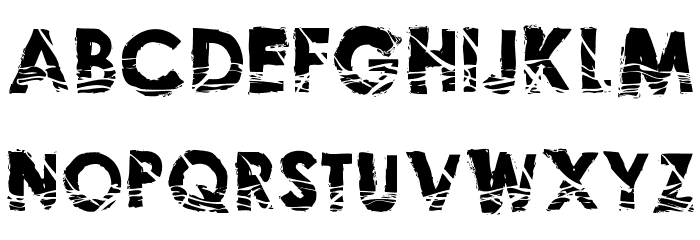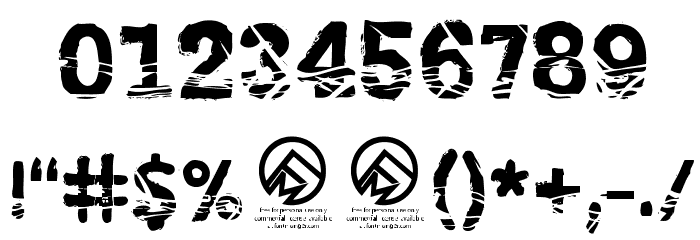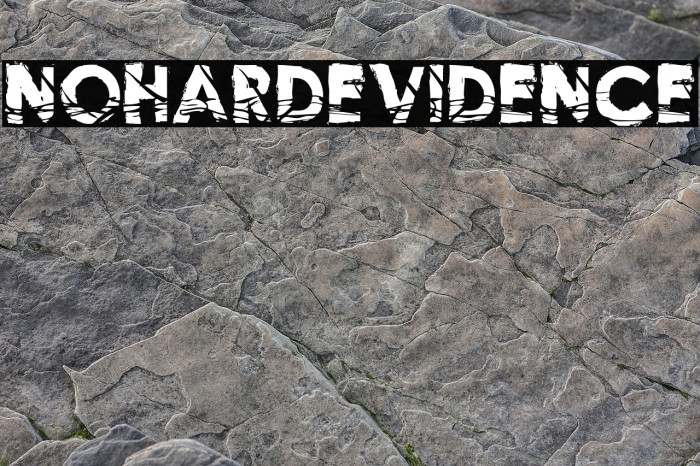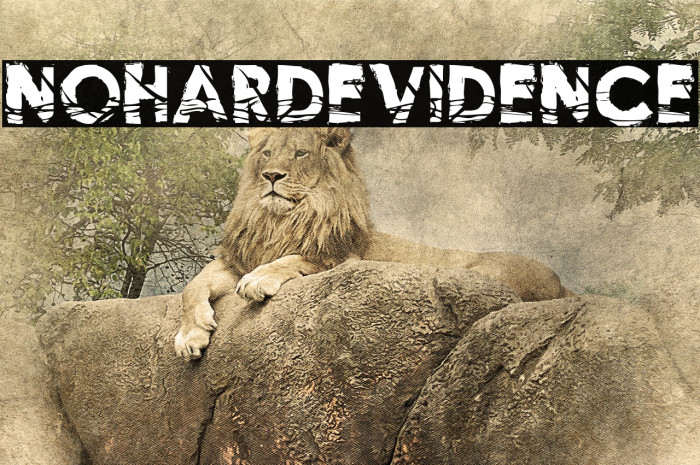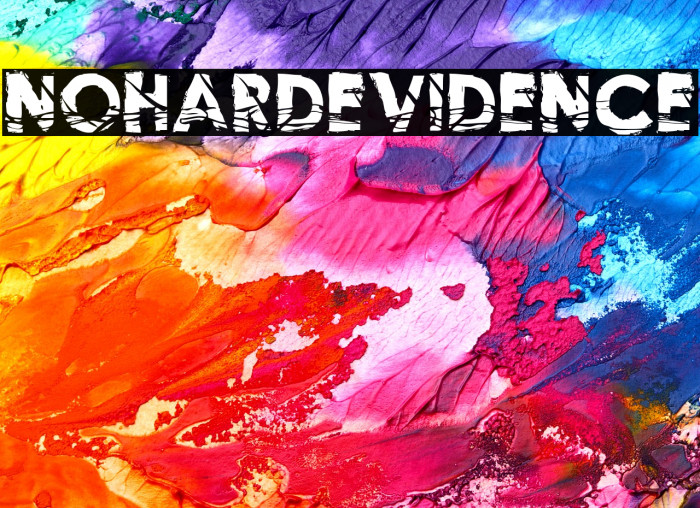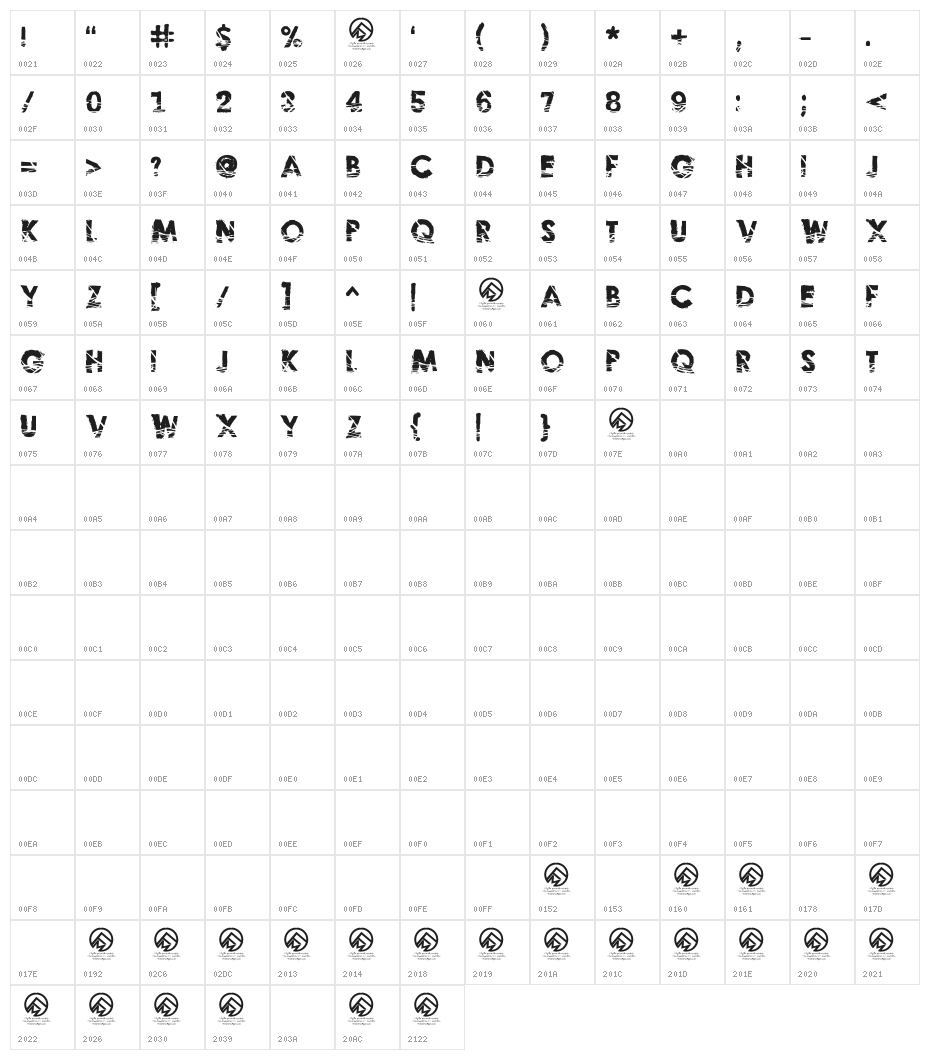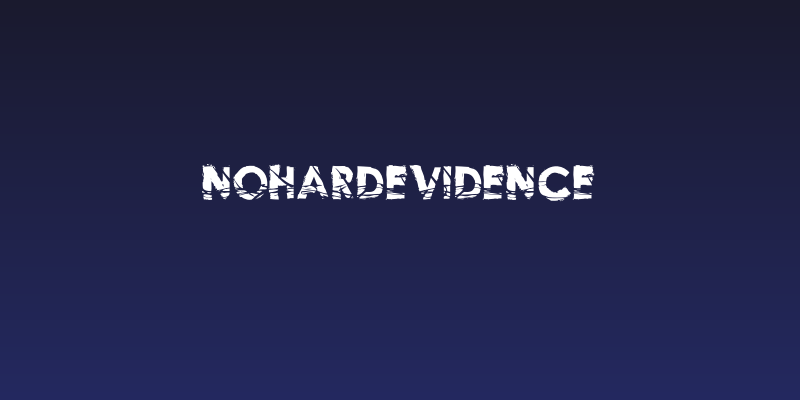
NoHardEvidence Font
This font features a bold, distressed style with a unique, rough texture that gives it a worn, grunge appearance. The characters are uppercase and lowercase alphabets, numerals, and a selection of special characters. The design incorporates irregular, jagged edges and varying line thicknesses, creating a dynamic and edgy look. This font is ideal for projects that require a rugged, urban aesthetic, such as posters, album covers, or branding for alternative or streetwear brands. Its distinctive style ensures that it stands out in any design context.
A bold, distressed font with a rugged, grunge texture.
- Proposed Projects: Ideal for posters, album covers, streetwear branding, and edgy design projects.
- Overall Style: Grunge, Urban, Edgy